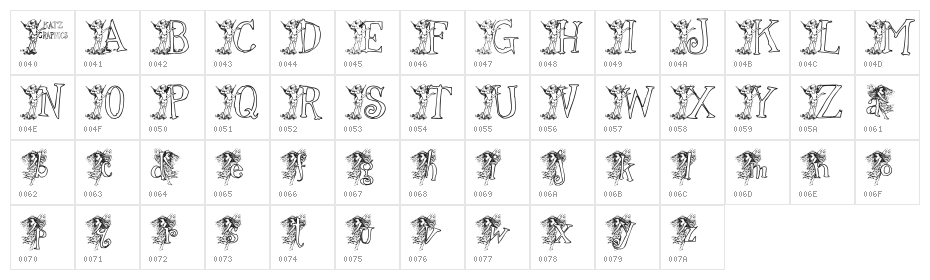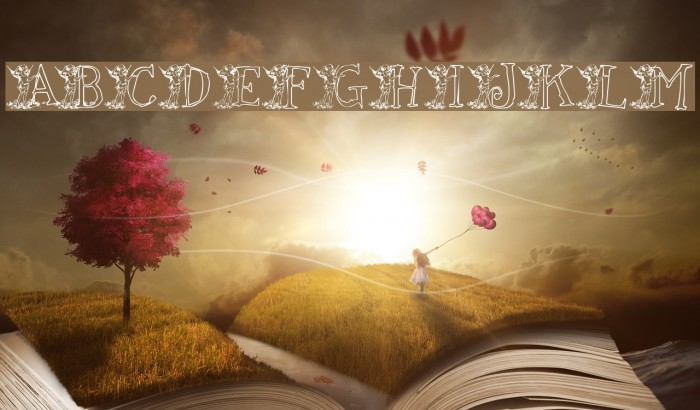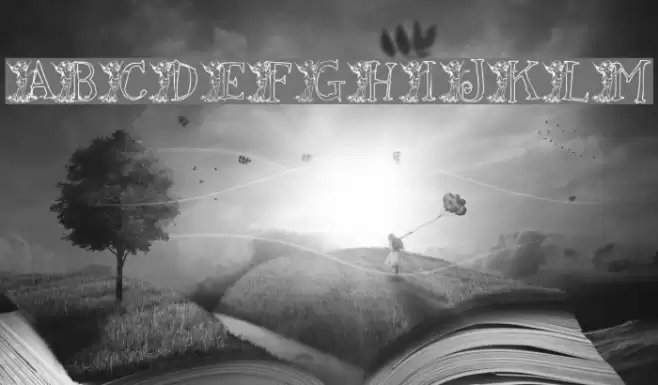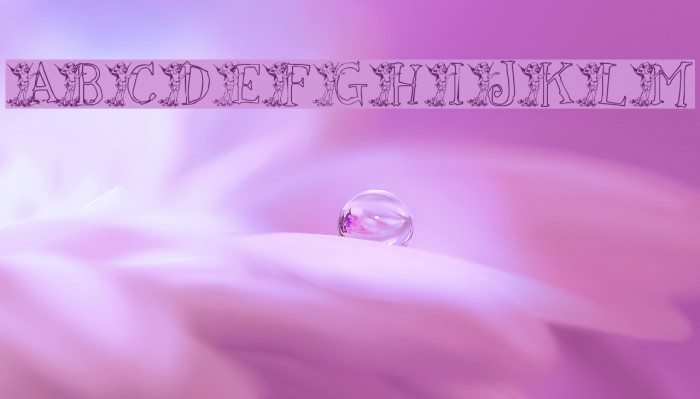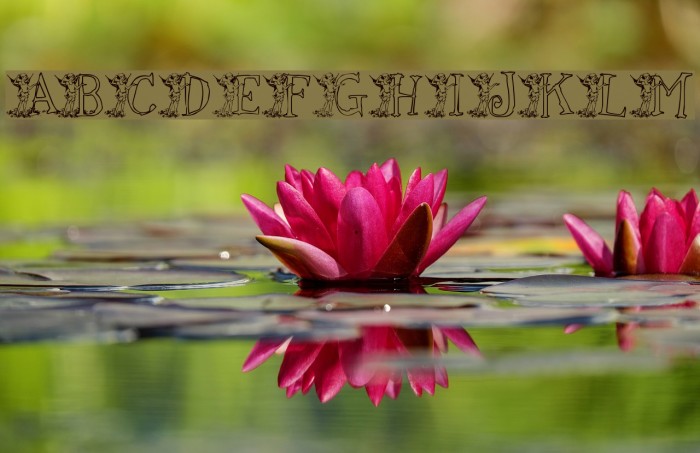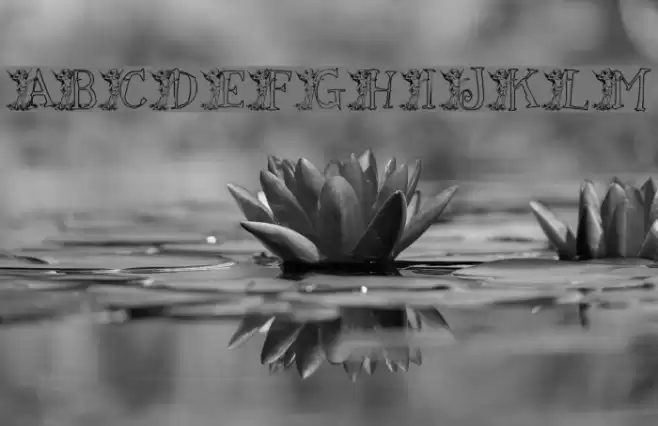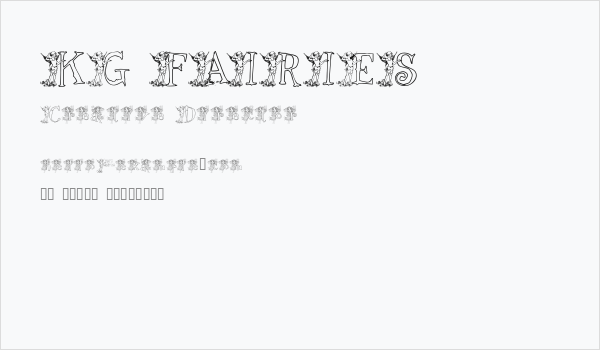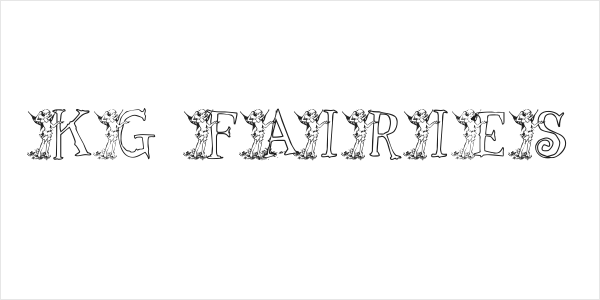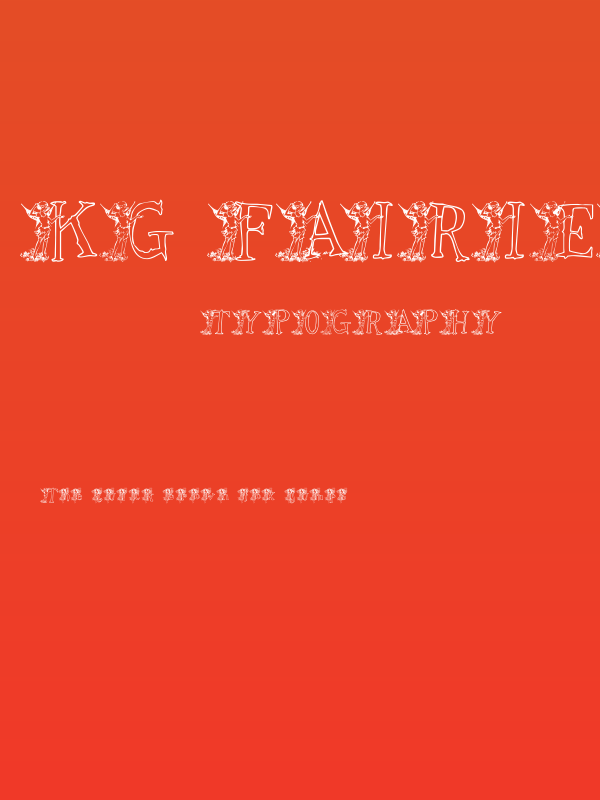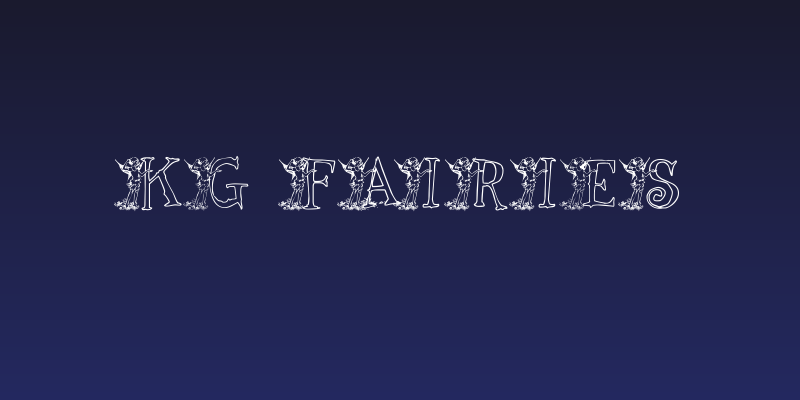
KG FAIRIES Font
KG FAIRIES Description
This font is an enchanting decorative typeface that features intricate fairy-themed embellishments integrated into each character. The uppercase and lowercase letters are adorned with whimsical fairy illustrations, creating a magical and fantasy-like appearance. The detailed artwork within each letter makes it highly decorative, capturing a sense of wonder and imagination. The font lacks numerical characters and special symbols, focusing solely on the alphabet. Its unique style is perfect for projects that aim to evoke a sense of fantasy or fairy tale charm.
| Overall Style | Fantasy, Whimsical, Decorative |
| Use Case | Headlines, Decorative text, Themed projects |
| Proposed Projects | Ideal for fantasy-themed invitations, children's book covers, whimsical posters, and magical event branding. |